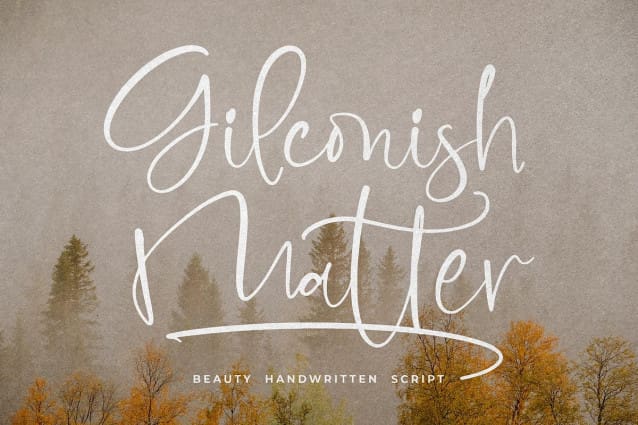
Gilconish Matter Font
Gilconish Matter Font – Beauty Handwritten Script , from Glorytype Studio, suitable for any projects such as: logos, branding projects, homeware designs, product packaging, mugs, quotes, posters, shopping bags, t-shirts, book covers, name card, invitation cards, greeting cards, label, photography, watermark, special events, and all your other lovely projects that need a beautiful script taste.